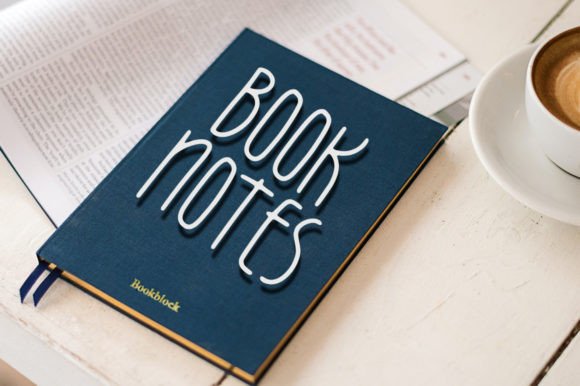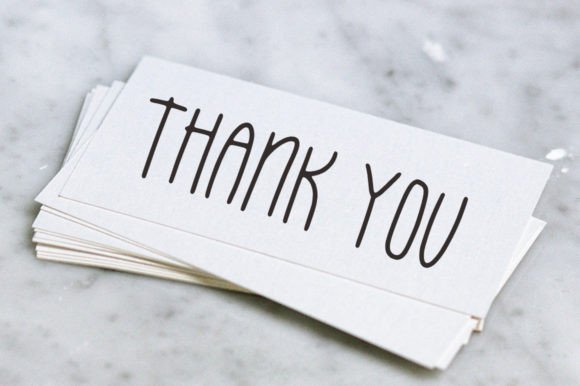
Introducing April Easter Font: Elevate Your Designs with Timeless Elegance
In the world of design, fonts play a crucial role in conveying the tone and aesthetic of a project. For those seeking a touch of elegance and sophistication, the April Easter Font is an exceptional choice. This trendy handwritten font boasts a contemporary atmosphere and impeccable form, drawing inspiration from timeless classic calligraphy.
The Essence of April Easter Font
April Easter is a beautifully crafted font that seamlessly blends traditional calligraphy elements with modern design sensibilities. Its unique charm lies in its ability to add a touch of refinement and luxury to any design project. Whether you’re working on a branding campaign, packaging design, or digital content, this font is sure to make a lasting impression.
Key Features of April Easter Font
- Trendy and Handwritten: April Easter Font features a handwritten style that exudes a sense of personal touch and warmth, making it perfect for designs that require a human feel.
- Contemporary Atmosphere: Despite its classic inspiration, the font maintains a modern vibe that will appeal to designers looking for something fresh and current.
- Impeccable Form: The font’s design is characterized by its flawless execution, ensuring that it looks great in various sizes and applications.
- Inspired by Timeless Classic Calligraphy: April Easter Font pays homage to traditional calligraphy, offering a sophisticated and elegant look that can elevate any design.
Applications of April Easter Font
The versatility of April Easter Font makes it suitable for a wide range of design projects. Here are some of the areas where this font can truly shine:
- Branding and Logos: Create a memorable brand identity with a logo that incorporates the elegant and sophisticated feel of April Easter Font.
- Stationery and Invitations: Add a touch of luxury to your stationery, wedding invitations, or event cards with this beautiful font.
- Packaging Design: Stand out on store shelves with packaging that features the refined and classy look of April Easter Font.
- Digital Content: Enhance your website, blog, or social media graphics with a font that offers both readability and style.
Why Choose April Easter Font?
In a sea of fonts, April Easter stands out for several reasons:
- Elegance: It brings an unmatched level of sophistication to any design.
- Versatility: Its adaptability makes it suitable for various design applications.
- Uniqueness: The font’s distinctive style ensures your designs won’t go unnoticed.
| Font Name | April Easter Font |
| Author | studiorhd |
April Easter Font is a remarkable addition to any designer’s toolkit. Its blend of classic calligraphy and modern design elements makes it a go-to choice for projects that demand elegance and sophistication. Whether you’re a professional designer or a crafting enthusiast, this font is sure to inspire and enhance your creative endeavors. Discover the difference April Easter Font can make in your designs today.
Embrace the beauty and versatility of April Easter Font in your designs. With its timeless elegance and contemporary appeal, this font is poised to become a favorite among designers and crafters alike.